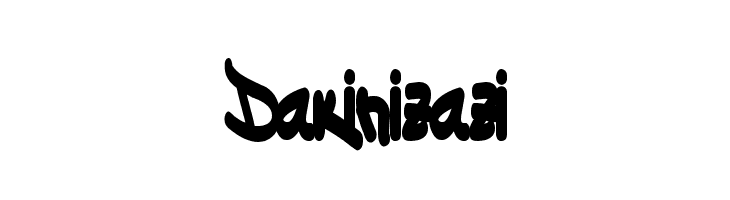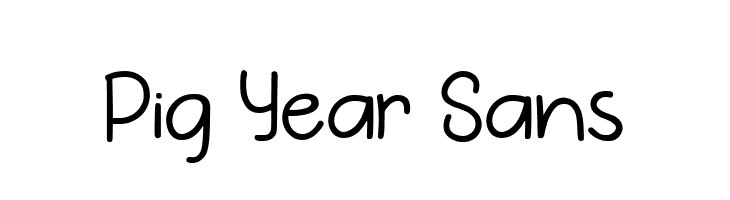
A playful, elegant italic font with light strokes and subtle curves.
A bold, rounded, and playful font with a hand-drawn appearance.
A bold, futuristic font with a gradient line effect, perfect for tech-themed designs.
A bold and playful script font with flowing curves and strong presence.
A pixelated, digital-style font with a retro, technological feel.
A bold, decorative font with a perforated, industrial look.
A bold, playful handwritten font with expressive strokes and a casual style.
A playful, hand-drawn font with tall, narrow characters and a whimsical style.